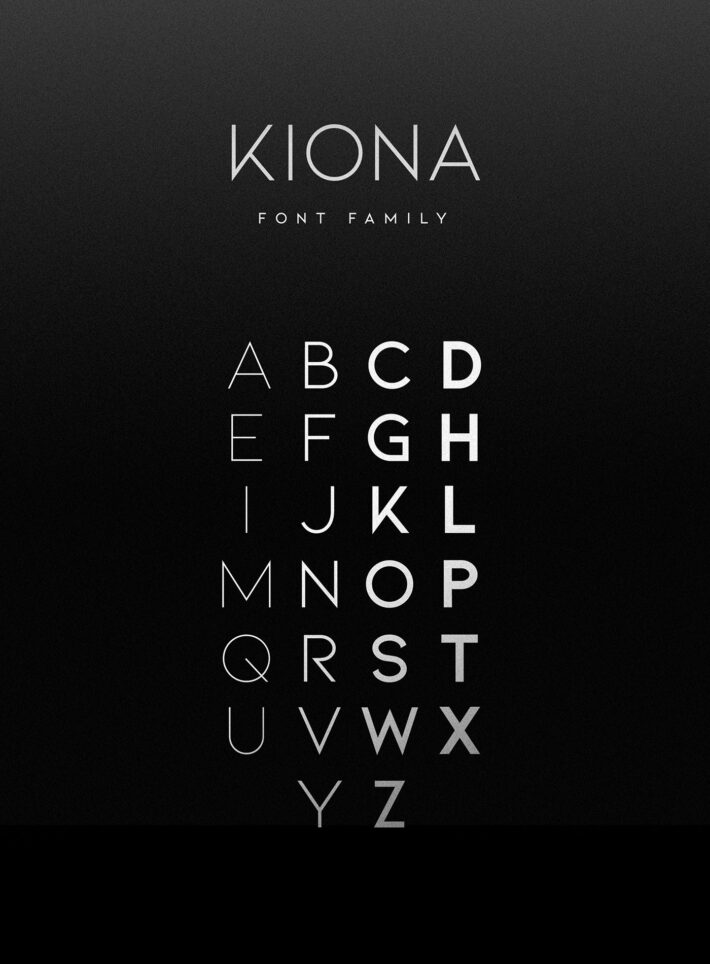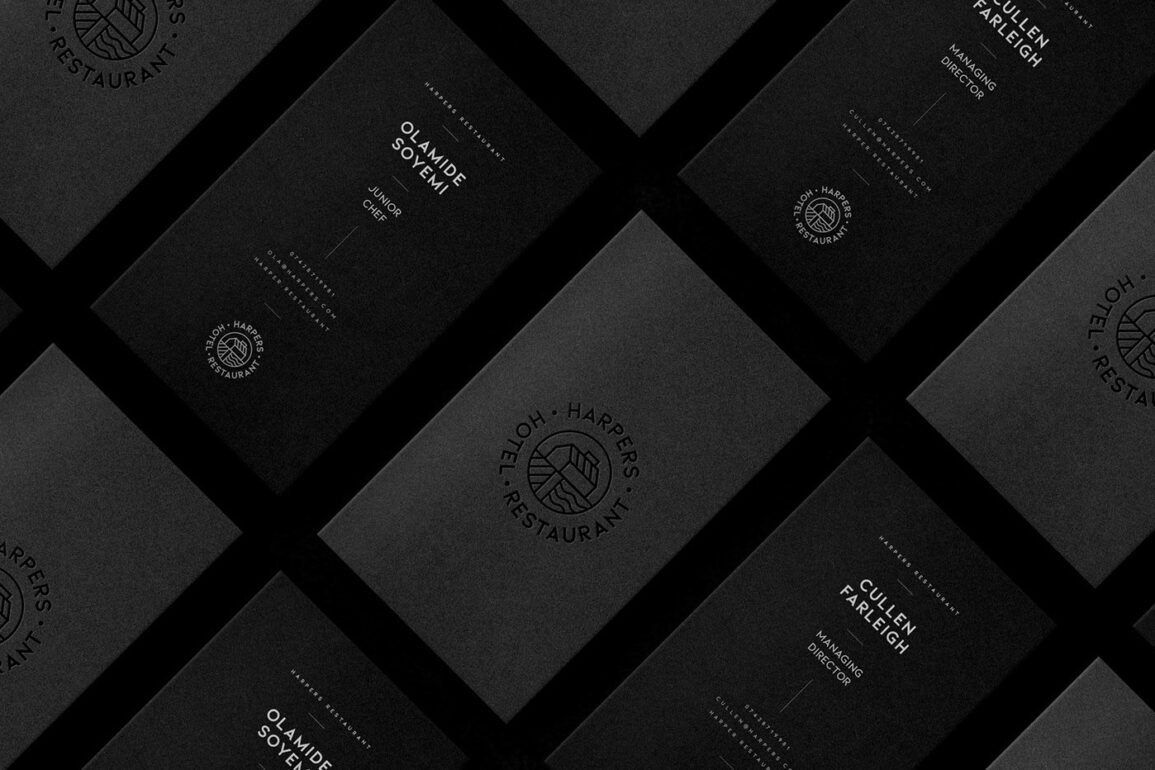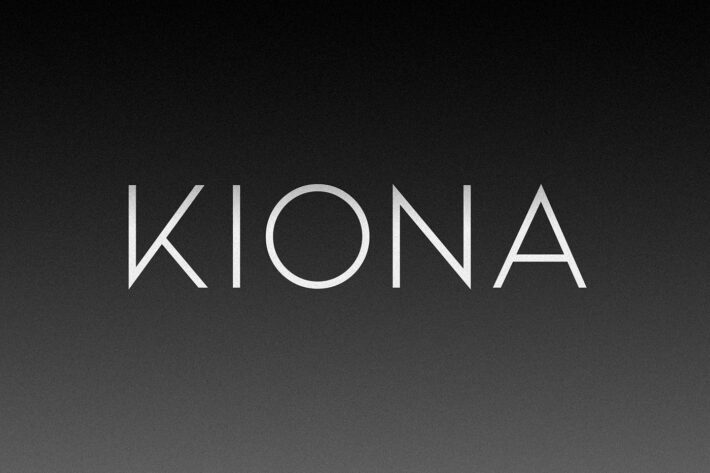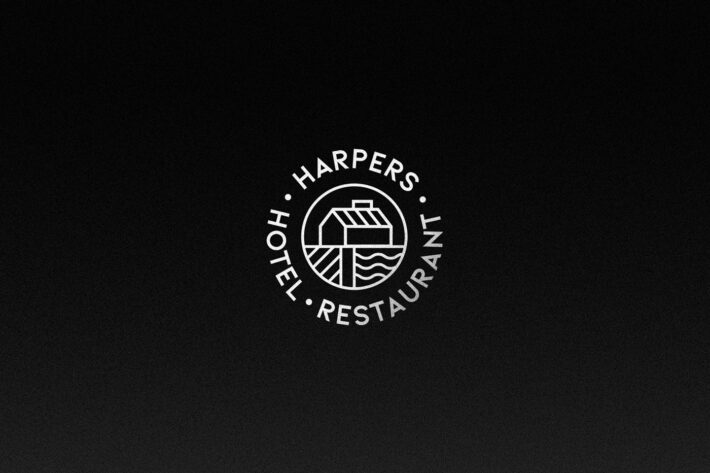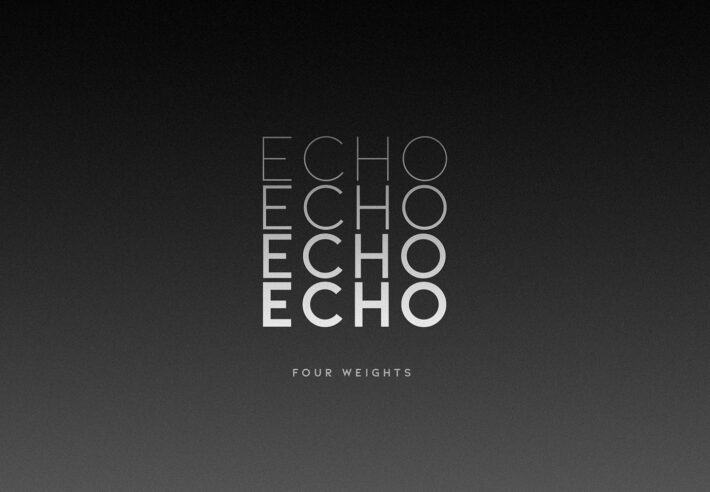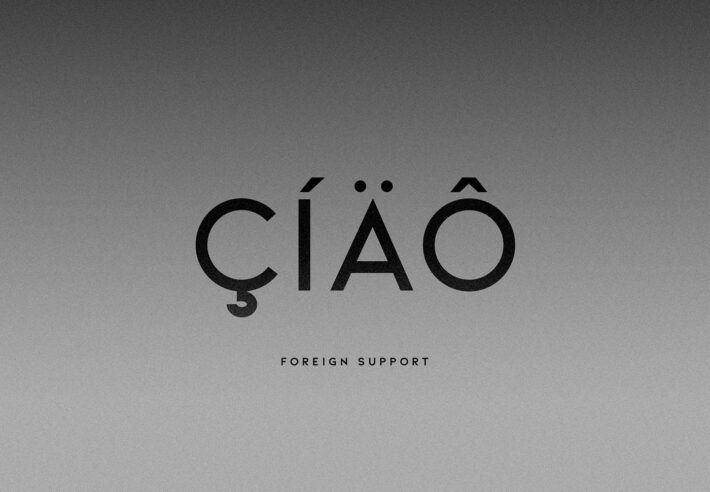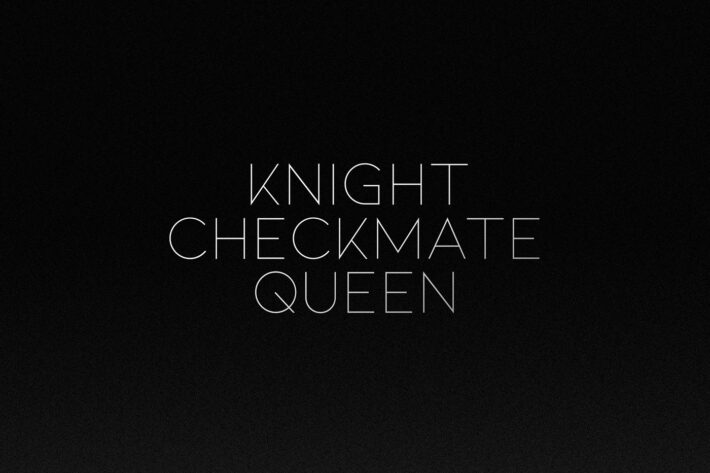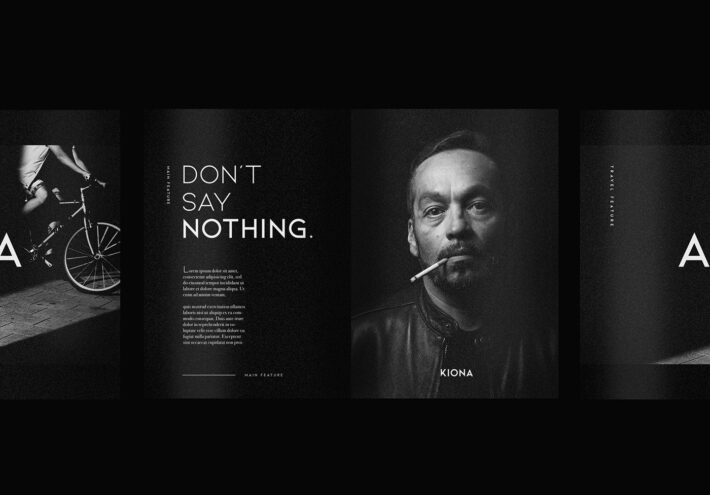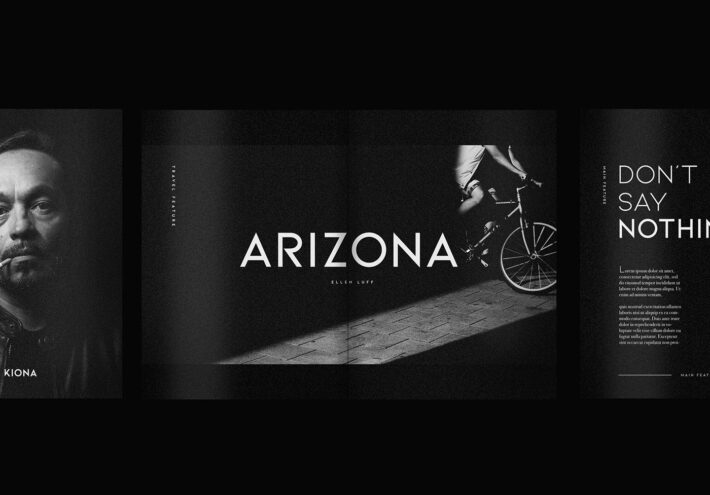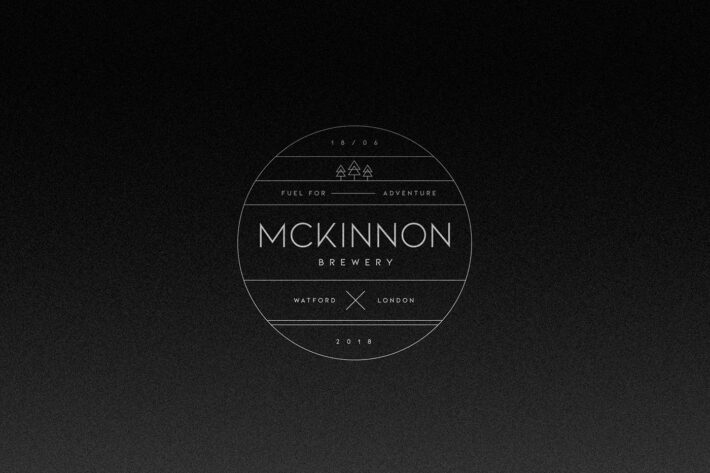
KIONA is presented by Ellen Luff and mock ups by Tom Watkins. KIONA is a simple but momentous typeface which is defined by its crispy edges and modern touches. It is designed for ideal legibility.
KIONA has four weights with four very different characters. KIONA Bold is sturdy and edgy, KIONA Light is subtle and exclusive, KIONA Regular and Semi bold are the balance between the two.
Italics and far-reaching language support is available. Use for free and enjoy.